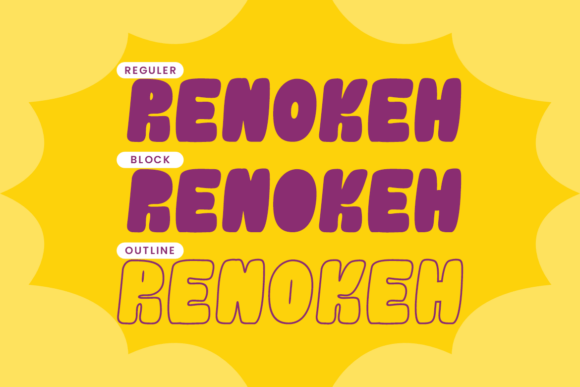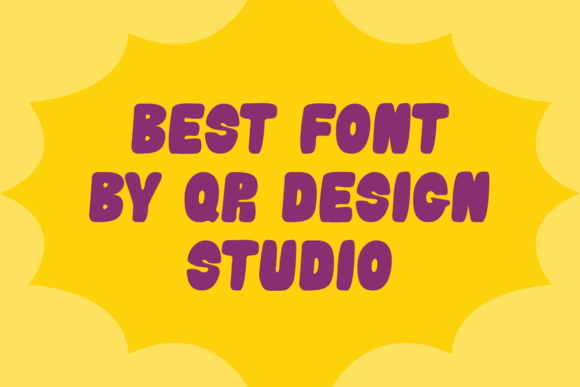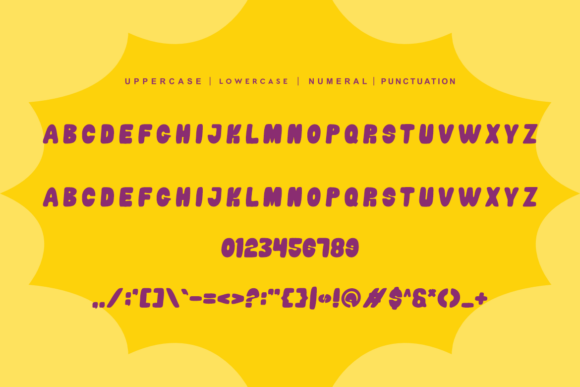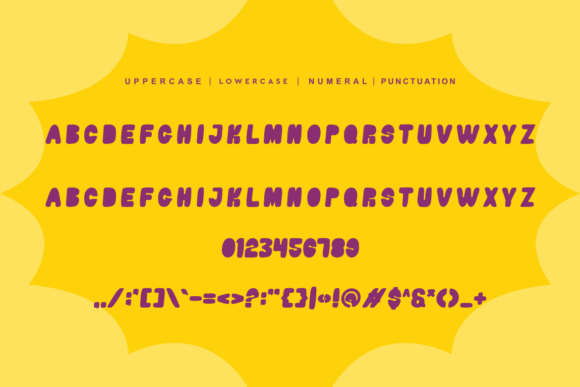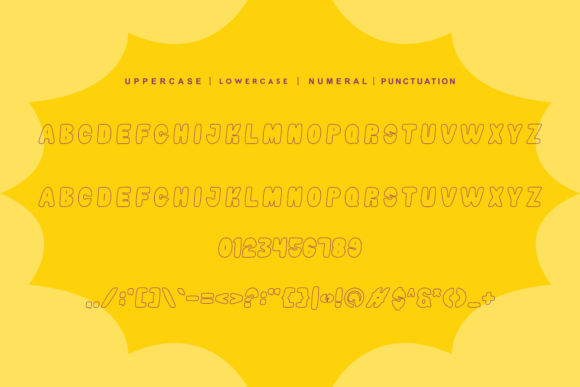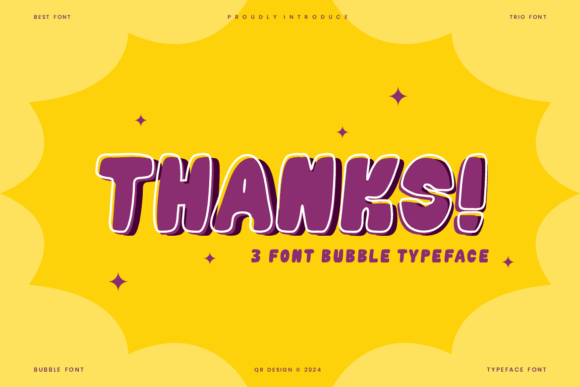
Introduction to Renokeh Font
Have you ever stared at a blank canvas, searching for that perfect spark to ignite your creative project? For designers, finding the right design resource can be the difference between a mediocre and a breathtaking result. I still remember the moment I stumbled upon the Renokeh Font – a cute and quirky display font that instantly lifted my mood and inspired me to think outside the box.
As a designer, you’re always on the lookout for high-quality fonts that can elevate your work. The Renokeh Font is a game-changer, offering a unique and playful touch that’s perfect for adding a joyful vibe to your designs. With its transparent background, this font is incredibly versatile and can be used in a variety of creative ways – from social media graphics to wedding invitations.
Key Features of Renokeh Font
- High-quality, free font for designers and artists working on creative projects, perfect as a design resource.
- Transparent background, making it ideal for use in digital art, graphics, and web design projects.
- Includes a wide range of characters, including Latin, Cyrillic, and Greek alphabets, making it suitable for various languages.
- Designed to be highly legible, even at small font sizes, making it perfect for use in body text, headings, and titles.
Honest Review: Renokeh Font
I recently had the chance to work with the Renokeh Font, and I must say it’s been a great addition to my design resource library. This font is perfect for any creative project that requires a high-quality, elegant touch.
One of the standout features of the Renokeh Font is its versatility. It works well in a variety of applications, from headings to body text, and its transparent background makes it easy to pair with other design elements. ✨ I particularly love how it adds a touch of sophistication to any design.
Some of the key features of the Renokeh Font include:
- High-quality design that’s perfect for print or digital projects
- Transparent background for easy layering and manipulation
While the Renokeh Font is a solid choice, I do have a few minor complaints. ⚠️ The font can be a bit tricky to use in certain contexts, and some of the characters may not display correctly in certain software. However, these issues are relatively minor and don’t detract from the overall quality of the font.
Overall, I’m really impressed with the Renokeh Font. It’s a great design resource that’s perfect for any creative project. With its high-quality design, transparent background, and free download, it’s a must-have for any designer’s library.
Tips for Getting the Most Out of Renokeh Font
The Renokeh Font is ideal for a variety of creative projects, including logos, graphics, presentations, and documents. It’s a great choice for designers looking for a high-quality, unique font to add to their design resource library.
Is the Renokeh Font suitable for designs with transparent backgrounds?
Yes, the Renokeh Font has a transparent background, making it ideal for use in designs that require a clear and seamless integration with other design elements. This feature allows designers to create visually appealing and professional-looking designs for their creative projects.